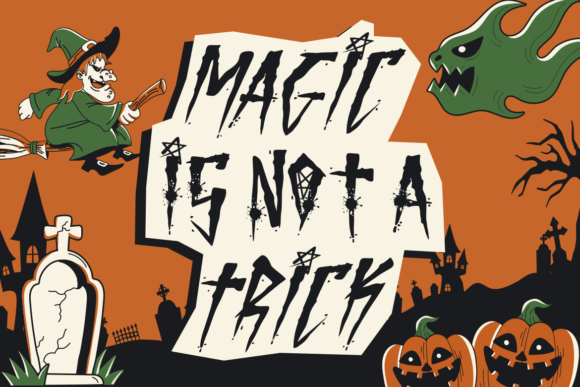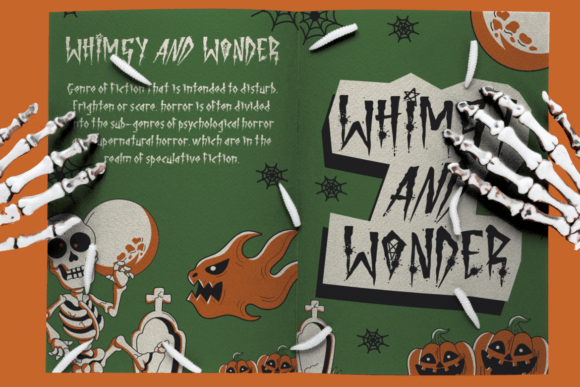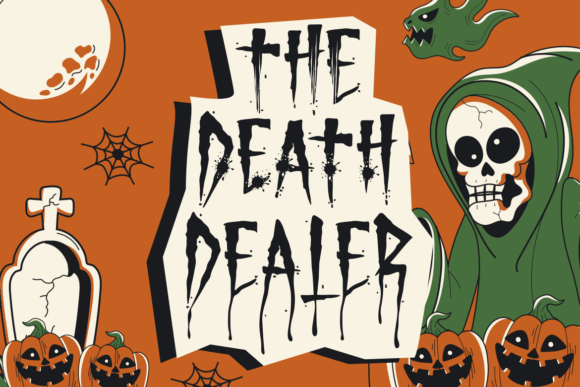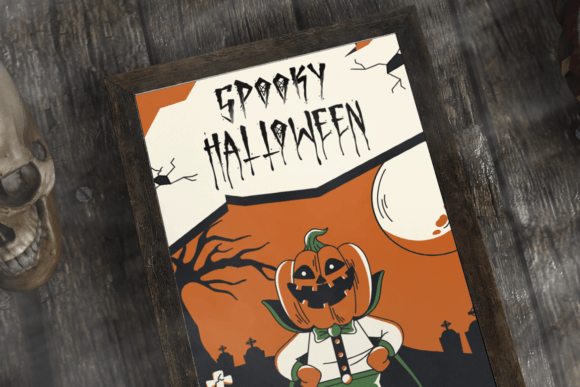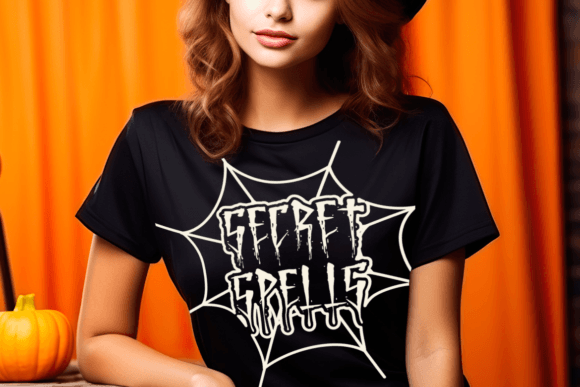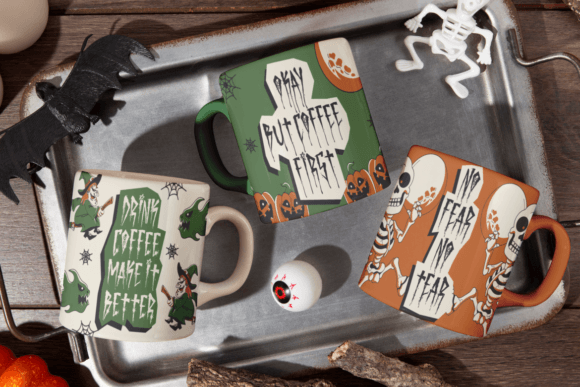
Unleash Your Inner Rebel with Brutal Brushstrokes Font
Have you ever stared at a blank canvas, a blank page, or a blank screen, and suddenly, a burst of creativity hits you like a thunderbolt? That’s exactly what happened when designers first laid eyes on the Brutal Brushstrokes Font – a typeface that embodies the raw energy of a live concert and the intensity of a horror movie. Crafted for those who dare to stand out, this font is the perfect blend of strength and edginess.
Whether you’re a seasoned designer or a creative enthusiast, the Brutal Brushstrokes Font is a valuable addition to your toolkit. Its versatility in application makes it perfect for branding, invitations, and event promotions, while its singular impact ensures that your designs will leave a lasting impression. So, are you ready to unleash your inner rebel and make a statement with the Brutal Brushstrokes Font?
- Font Family: A unique, hand-drawn sans-serif font with a bold and edgy feel.
- Unique Characteristics: Features bold, expressive brushstrokes and a distressed texture, giving it a raw and energetic feel.
- Character Set: Includes a comprehensive character set, including uppercase and lowercase letters, numerals, punctuation marks, and special characters.
Designer Review: Brutal Brushstrokes Font
Overall, I’m impressed with the Brutal Brushstrokes Font. It’s a unique and eye-catching font that can add a touch of edginess to any design project. ✨ The font’s bold brushstrokes and irregular shapes give it a hand-painted feel that’s perfect for creative and artistic projects.
The font’s versatility is one of its strongest features. It can be used for a wide range of applications, from fashion and beauty branding to music and art. ✨ The font’s boldness also makes it ideal for headlines and titles, while its irregular shapes add visual interest to body text.
While the Brutal Brushstrokes Font is a great addition to any designer’s toolkit, there are some limitations to consider. ⚠️ One of the main limitations is the font’s lack of legibility at smaller font sizes. The font’s bold brushstrokes can make it difficult to read in smaller text, which may limit its use in certain applications.
Overall, I’m a fan of the Brutal Brushstrokes Font. Its unique style and versatility make it a great choice for designers looking to add some edge to their projects. While it may have some limitations, the font’s benefits far outweigh its drawbacks. With the right use case and font size, the Brutal Brushstrokes Font can be a real showstopper.
Recommendation
- Use the font for bold headlines and titles.
- Pair the font with a clean, sans-serif font for body text.
- Use the font for creative and artistic projects.
- Avoid using the font for small text or body text.
For best results, use the Brutal Brushstrokes font in bold or italic styles to add emphasis to your text. You can also combine it with other fonts to create a unique visual effect.
The Brutal Brushstrokes font is ideal for:
- Emphasizing headlines and titles.
- Adding a touch of elegance to invitations and event graphics.
- Creating a bold and eye-catching visual effect in social media posts and ads.
Alternatives to Brutal Brushstrokes Font
Great Vibes is a beautiful, handwritten font that captures the same essence of Brutal Brushstrokes. It’s ideal for creating a friendly and approachable tone in your designs. Great Vibes is a bit more polished than Brutal Brushstrokes, making it suitable for a wider range of applications.
Comparison: Great Vibes has a more uniform and refined feel compared to the rougher, more expressive strokes of Brutal Brushstrokes.
Pacifico is a stunning, modern script font that conveys a sense of elegance and sophistication. It’s perfect for creating a luxurious and high-end feel in your designs. Pacifico has a more fluid and dynamic feel compared to the bold, brush-like strokes of Brutal Brushstrokes.